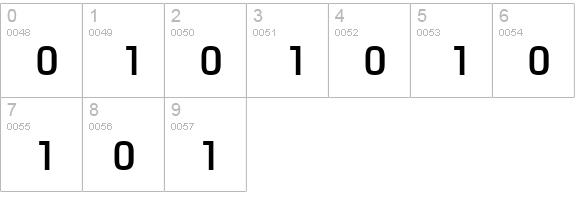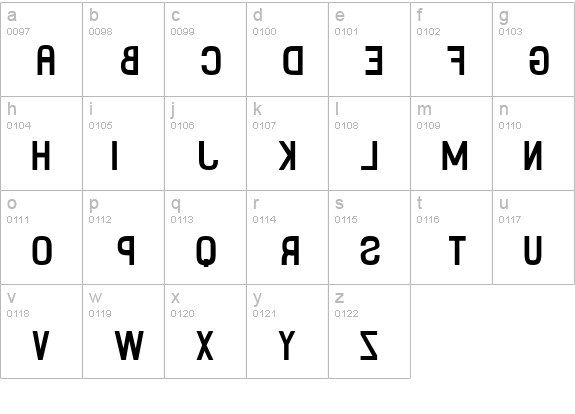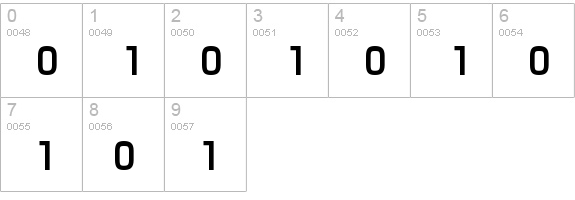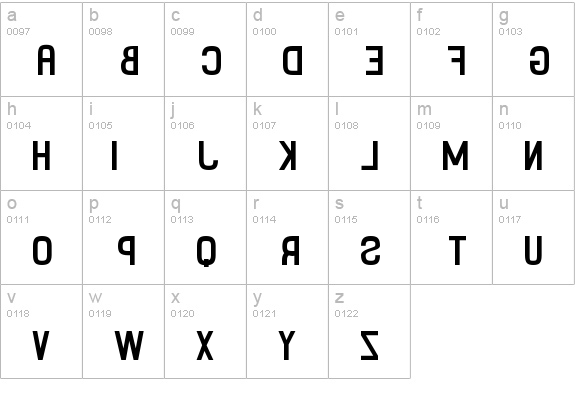
Introducing the Binary font, a sleek and modern typeface that brings a digital flair to your designs. This unique font features crisp, binary-inspired characters that are perfect for technology-themed projects, coding-related content, and futuristic designs. The Binary font is versatile and eye-catching, making it a great choice for logos, branding, posters, and more. Best of all, the Binary font is available for free download at FontsMarket.com. This means you can easily add this cutting-edge font to your collection without breaking the bank. Whether you're a designer, developer, or simply a fan of tech-inspired aesthetics, the Binary font is sure to make a bold statement in your projects. Download it today and elevate your designs with this striking typeface.